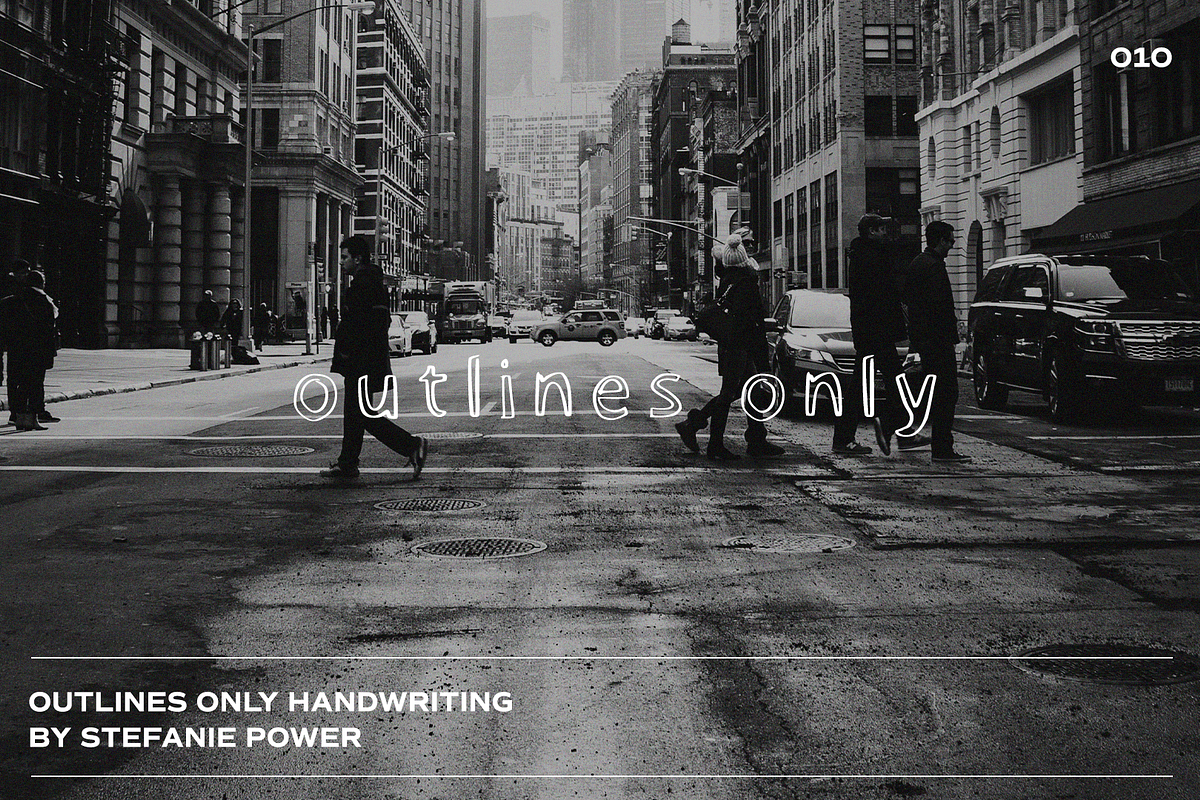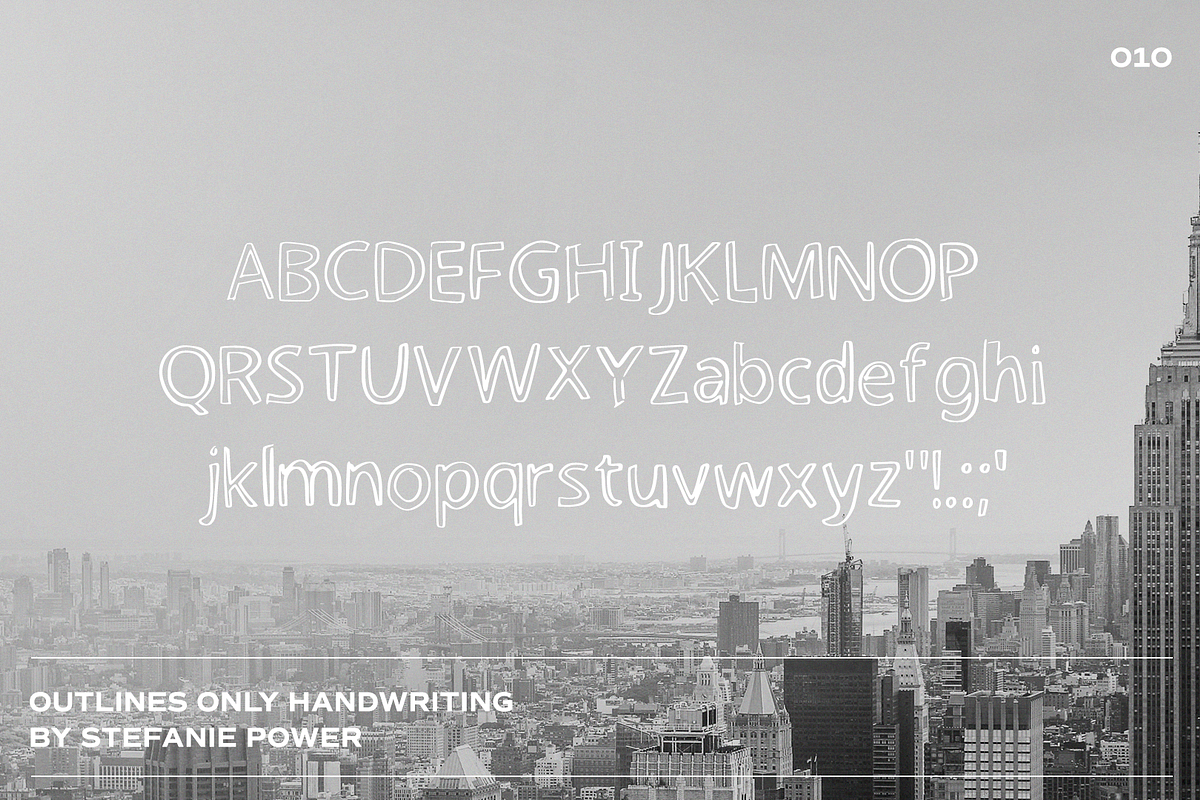
Outlines Only Handwriting | Font
**Introducing 'OUTLINES ONLY' - the ultimate messy outline font.
OUTLINES ONLY • A handwritten font containing upper & lowercase characters and a range of punctuation and numbers.